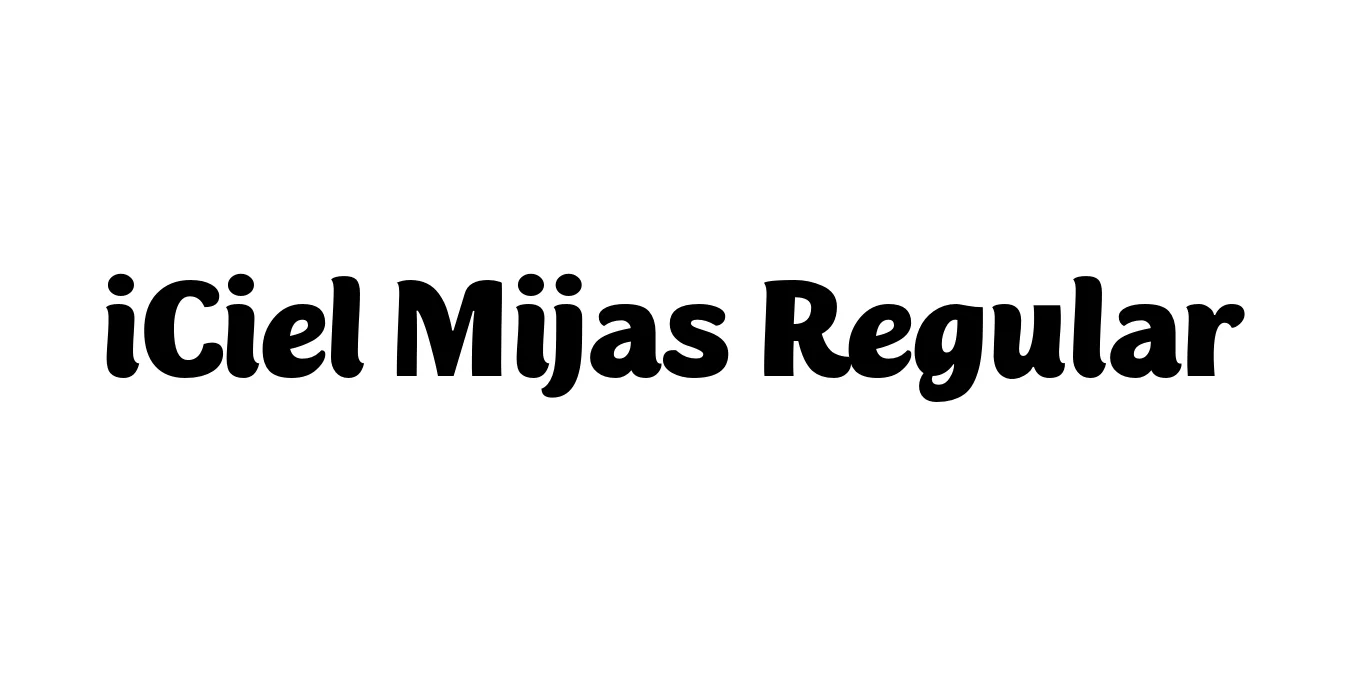
iCiel Mijas Regular
Designed by iCiel Foundry
iCiel Mijas Regular is a charming, elegant script typeface that captures the essence of hand-drawn calligraphy with a modern twist. Developed by the prominent Vietnamese font foundry iCiel, this typeface is particularly known for its smooth strokes and balanced proportions, making it highly legible despite its artistic script nature. It carries a sense of sophistication and natural flow, suitable for designs that require a personal, human touch while maintaining professional standards.
The font features a variety of OpenType features, including stylistic alternates and ligatures, which allow designers to create unique and fluid typographic compositions. iCiel Mijas is widely utilized for high-end branding, wedding invitations, and editorial design where a blend of luxury and approachability is desired. Its versatility across both digital and print media makes it a popular choice for designers looking to elevate their visual storytelling.
iCiel Mijas Regular Best Uses
Perfect for invitations, RSVP cards, and elegant seating charts.
Ideal for logos in the fashion, beauty, and boutique luxury sectors.
Works beautifully for decorative headlines and pull-quotes in lifestyle magazines.
Great for creating aesthetic quotes and high-end Instagram graphics.